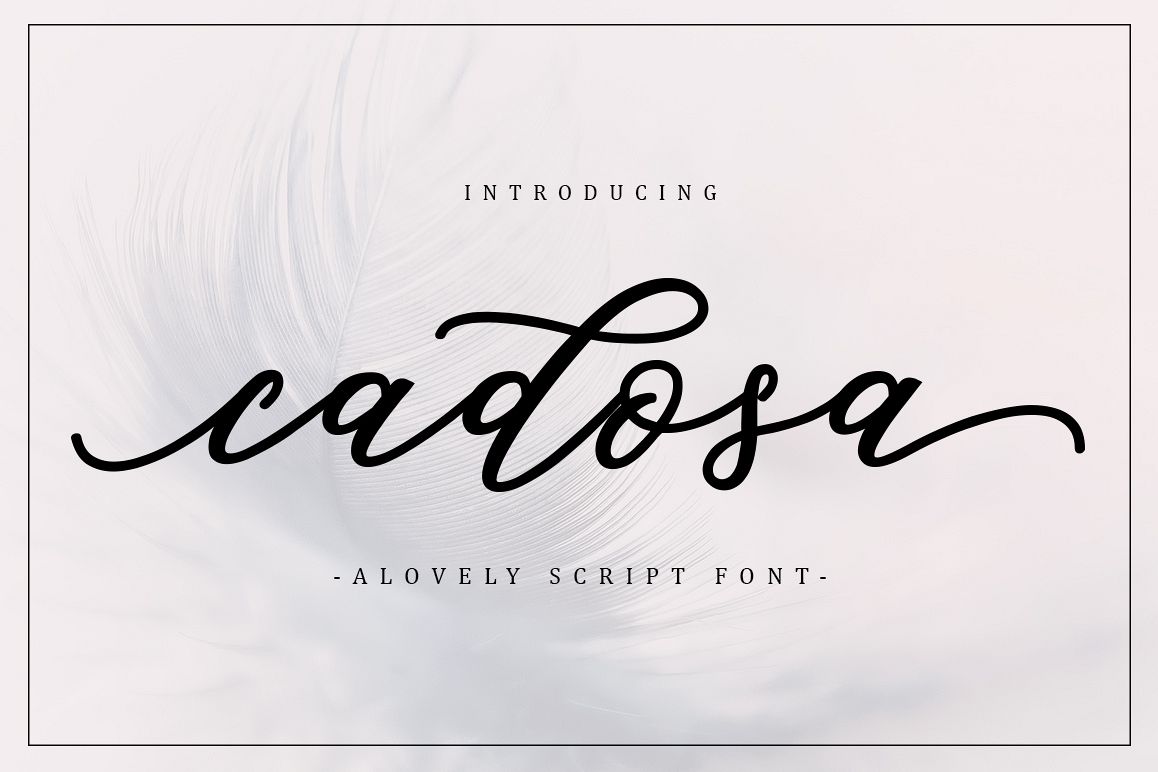
INTRODUCING Cadosa
ScriptCadosa Script is a modern calligraphy font. Cadosa a beautiful for logotype, website header, fashion design,wedding card design and any more. Bellisia comes with elegant style, It also comes as a Cadosa font, It contains a full set of lower & uppercase letters, a large range of punctuation, numerals, and multilingual support.